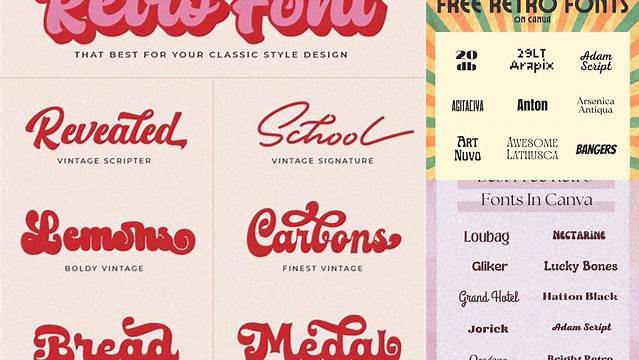
Free Retro Fonts In Canva: Design Guide
Hey guys! Are you looking to infuse your designs with a touch of nostalgia? Retro fonts are the perfect way to evoke the charm of past eras, and the best part is, you can find some fantastic options for free right within Canva. This article will dive deep into the world of retro fonts in Canva, exploring why they’re so popular, how to use them effectively, and showcasing some of the best free retro fonts that Canva has to offer. Whether you're working on a vintage-themed poster, a groovy logo, or a funky social media graphic, understanding and utilizing retro fonts can significantly elevate your designs. So, let’s get started and explore the world of free retro Canva fonts!
Why Use Retro Fonts?
Retro fonts have a unique appeal that transcends time. Retro fonts bring a sense of nostalgia, connecting viewers to specific eras and styles. They can evoke memories of vintage advertisements, classic movie posters, and iconic design movements. This connection can make your designs more engaging and memorable. The power of retro fonts lies in their ability to add character and personality to your projects. Unlike modern fonts that often strive for clean simplicity, retro fonts embrace quirks and unique features that set them apart. Think of the bold, rounded serifs of the 1970s or the playful script fonts of the 1950s – each style has its own distinct vibe. This distinctiveness can help your designs stand out in a sea of generic content. Using retro fonts can also be a fantastic way to establish a specific mood or theme. For example, a design featuring a bold, sans-serif font with strong lines might convey a sense of power and confidence, reminiscent of mid-century modern design. On the other hand, a whimsical script font could evoke feelings of nostalgia and warmth, perfect for a vintage-inspired project. Ultimately, the careful selection of a retro font can speak volumes and enhance the overall message of your design.
Another reason to consider retro fonts is their versatility. While they’re perfect for vintage-themed projects, they can also be used in modern designs to create a striking contrast. Imagine pairing a clean, minimalist layout with a bold retro font – the juxtaposition can be incredibly eye-catching. This versatility means that retro fonts are a valuable asset in any designer's toolkit. They can be used to add a touch of personality to branding materials, create captivating website headers, or even design unique invitations. By understanding the different styles of retro fonts and how they interact with other design elements, you can create visuals that are both timeless and contemporary. Furthermore, the enduring popularity of retro fonts ensures that they remain a relevant and impactful choice for design projects. Trends may come and go, but the appeal of vintage aesthetics continues to resonate with audiences. Incorporating retro elements, especially fonts, can give your designs a classic feel that transcends fleeting trends, making them more enduring and memorable.
Top Free Retro Fonts on Canva
Canva is a treasure trove of fonts, and it boasts an impressive collection of retro options that you can use for free. Let’s explore some of the top free retro fonts available on Canva, categorized by style to help you find the perfect fit for your project. First, let's discuss sans-serif fonts. For a bold, mid-century modern feel, Archivo Black is an excellent choice. Its strong, geometric shapes make it perfect for headlines and logos. Another great option is Oswald, which offers a more condensed and versatile sans-serif with a touch of retro charm. If you're looking for something with a bit more character, try Bebas Neue, a tall and narrow sans-serif that's ideal for posters and impactful statements. These sans-serif fonts bring a clean, yet vintage aesthetic to your designs, perfect for capturing the essence of the mid-20th century.
Next, let's move on to serif fonts, which often exude a classic and elegant retro vibe. Playfair Display is a sophisticated serif with high contrast and a timeless appeal, perfect for adding a touch of vintage glamour. Lora is another fantastic option, offering a well-balanced serif with a contemporary feel and subtle retro undertones. For a more distinct vintage style, consider Bitter, a robust serif with a slightly weathered look that’s ideal for body text and headlines alike. These serif fonts in Canva offer a range of options, from elegant and refined to slightly rugged, allowing you to capture the desired retro feel with precision. Script fonts are also a crucial part of the retro font landscape, and Canva has several free options that capture the playful and stylish spirit of past eras. Great Vibes is a beautiful cursive script that evokes the elegance of vintage invitations and signage. Pacifico is a casual and friendly script font, perfect for adding a touch of retro fun to your designs. For a bolder and more dramatic script, try Permanent Marker, which mimics the look of hand-drawn lettering and adds a unique, personal touch. These script fonts are perfect for adding flair and personality to your projects, whether you’re designing logos, posters, or social media graphics. Remember to experiment with different font pairings to create unique and visually appealing designs.
How to Use Retro Fonts Effectively
Using retro fonts effectively requires a bit of finesse. While these fonts are attention-grabbing, overusing them can make your design look cluttered and overwhelming. The key is to strike a balance and use them strategically. One crucial tip is to pair your retro font with a more modern, neutral font. This contrast can create a visually appealing balance and prevent your design from feeling too dated. For example, you might pair a bold retro sans-serif like Archivo Black with a clean, modern sans-serif like Open Sans for body text. Another strategy is to use retro fonts sparingly, perhaps just for headlines or key elements, and use a simpler font for the rest of the text. This approach ensures that the retro font makes a statement without overpowering the overall design.
Consider the context of your design when choosing a retro font. Different eras have different font styles, so aligning your font choice with the specific era you're trying to evoke is essential. For a 1950s diner vibe, a script font like Pacifico might be perfect. For a 1970s disco feel, a bold, rounded sans-serif like Montserrat might be a better choice. Think about the colors and imagery you're using in your design as well. Retro fonts often work best with vintage-inspired color palettes and graphics. Muted tones, pastel colors, and classic illustrations can complement retro fonts beautifully. Experiment with different combinations to find what works best for your project. Furthermore, pay attention to the readability of your retro font. While these fonts are stylish, they should still be legible. Avoid using overly decorative fonts for large blocks of text, as they can be difficult to read. Opt for simpler retro fonts or use them in larger sizes to ensure clarity. Finally, don’t be afraid to experiment and have fun! Retro fonts can add a unique and playful touch to your designs, so explore different options and see what creative combinations you can come up with. By following these tips, you can harness the power of retro fonts to create visually stunning and engaging designs.
Design Ideas with Free Retro Canva Fonts
So, how can you actually use these free retro Canva fonts in your designs? Let's brainstorm some creative ideas to get your inspiration flowing. For a vintage-themed poster, consider using a bold serif font like Playfair Display for the title and a script font like Great Vibes for supporting text. Pair this with muted colors and classic illustrations for a truly retro look. If you're designing a logo, think about using a strong sans-serif font like Archivo Black or Oswald to convey a sense of mid-century modern style. You can also incorporate retro color palettes and geometric shapes to enhance the vintage vibe. For social media graphics, use retro fonts to grab attention and create a unique aesthetic. Try using a playful script font like Pacifico for headings and a clean sans-serif for body text. Incorporate retro-inspired filters and layouts to complete the look.
Another great idea is to use retro fonts for invitations and announcements. A sophisticated serif font like Lora or Bitter can add a touch of elegance to wedding invitations, while a fun script font can be perfect for birthday party invites. Combine these fonts with vintage-inspired graphics and colors for a cohesive design. If you're working on a website, retro fonts can be used to create eye-catching headers and banners. Use a bold sans-serif font to make a statement and pair it with a modern font for body text to ensure readability. Incorporate vintage textures and patterns to add depth and character to your website design. Remember, the key to using retro fonts effectively is to balance them with other design elements and to consider the overall message you're trying to convey. By experimenting with different combinations and styles, you can create designs that are both visually appealing and uniquely retro. Whether you're designing for print or digital media, free retro Canva fonts offer a wealth of possibilities for adding a touch of vintage charm to your projects.
In conclusion, retro fonts are a powerful tool for designers looking to add character, nostalgia, and a touch of vintage charm to their projects. With Canva's impressive collection of free retro fonts, you have a wide range of options at your fingertips to create stunning and unique designs. From bold sans-serifs to elegant serifs and playful scripts, there's a retro font for every style and purpose. Remember to use these fonts strategically, pairing them with modern fonts and vintage-inspired design elements to achieve the perfect balance. So, go ahead, explore Canva's font library, experiment with different styles, and unleash your creativity with free retro fonts. Your designs will thank you for it! By understanding the nuances of retro typography and how to use it effectively, you can elevate your projects and create visuals that resonate with audiences on a deeper level. Whether you're a seasoned designer or just starting out, the world of retro fonts offers endless possibilities for creative expression. Happy designing, guys!